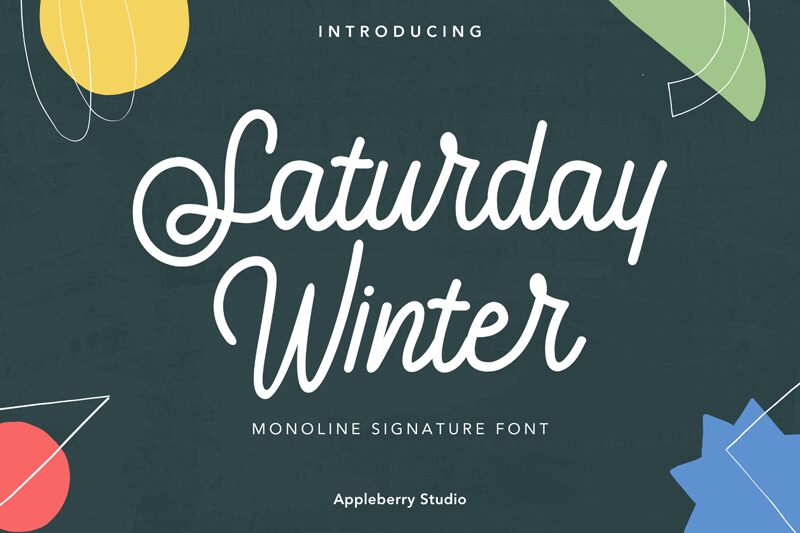
Saturday Winter, designed by Appleberry Studio, is a monoline signature font that brings a touch of elegance and sophistication to any project. Its semi-light weight adds a delicate and refined feel while maintaining legibility. This font is perfect for wedding invitations, branding projects, or any design that requires a personal touch. With its sleek curves and clean lines, Saturday Winter transforms your words into works of art. Use it for logos, packaging designs, or social media graphics to add an extra layer of style and charm. Let Saturday Winter elevate your next project with its effortless grace and beauty.